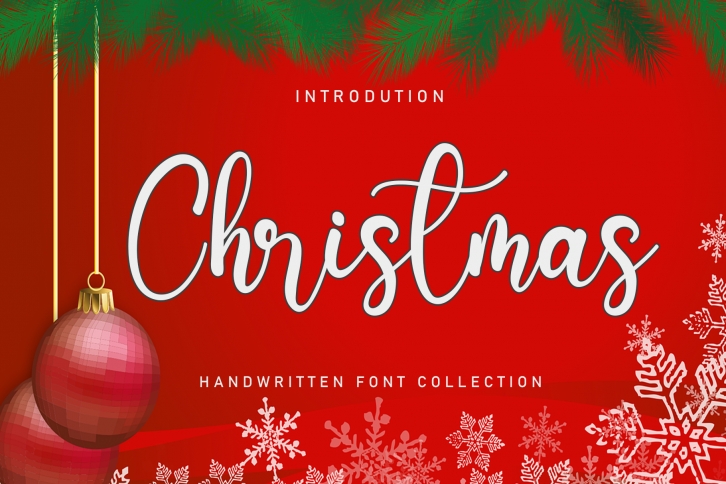
Christmas is a chic handwritten font that is readable, flowing and stylish. It is defined by smooth curves and is perfect for fashion branding or editorial designs. Add it confidently to your projects, and you will love the results.Â